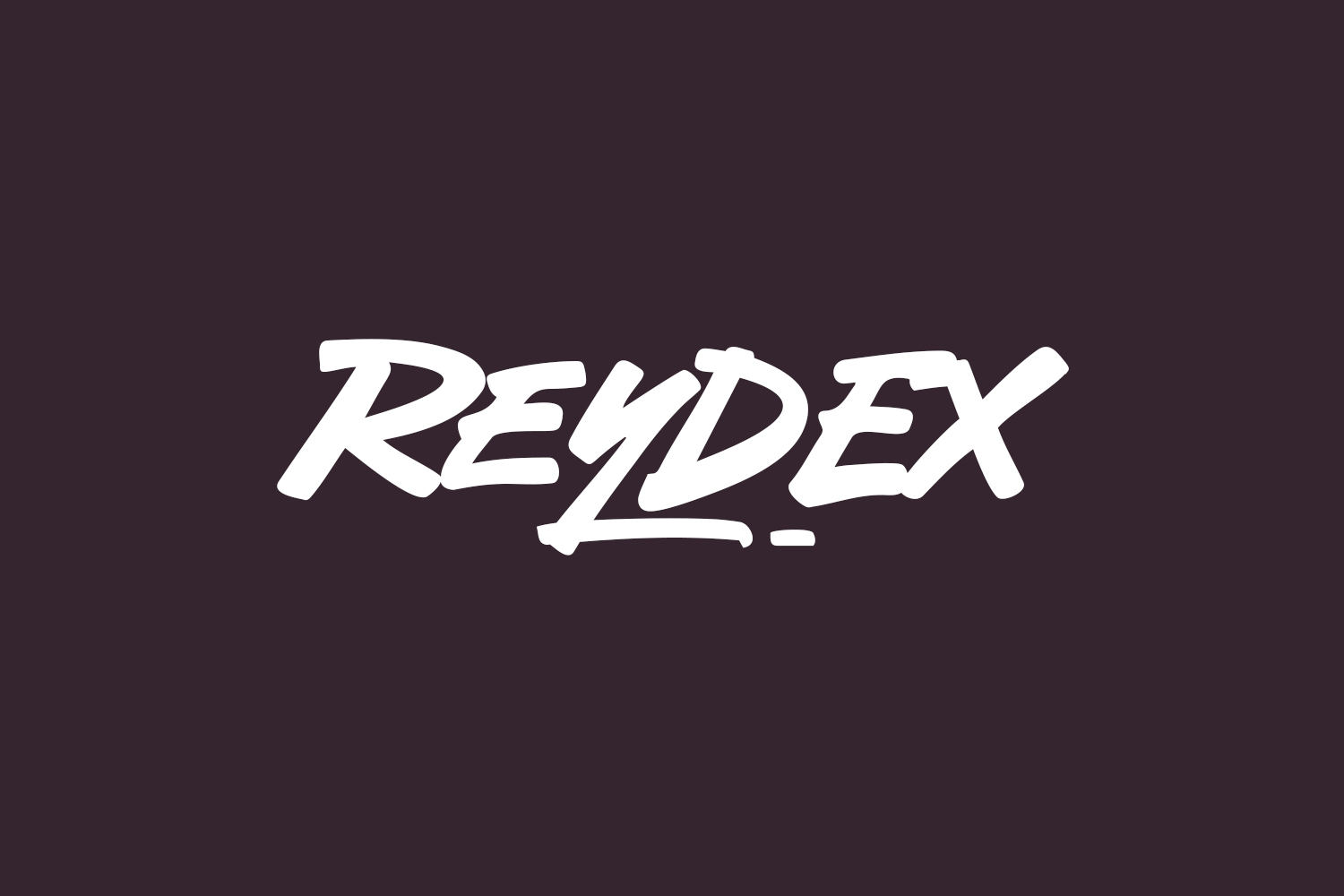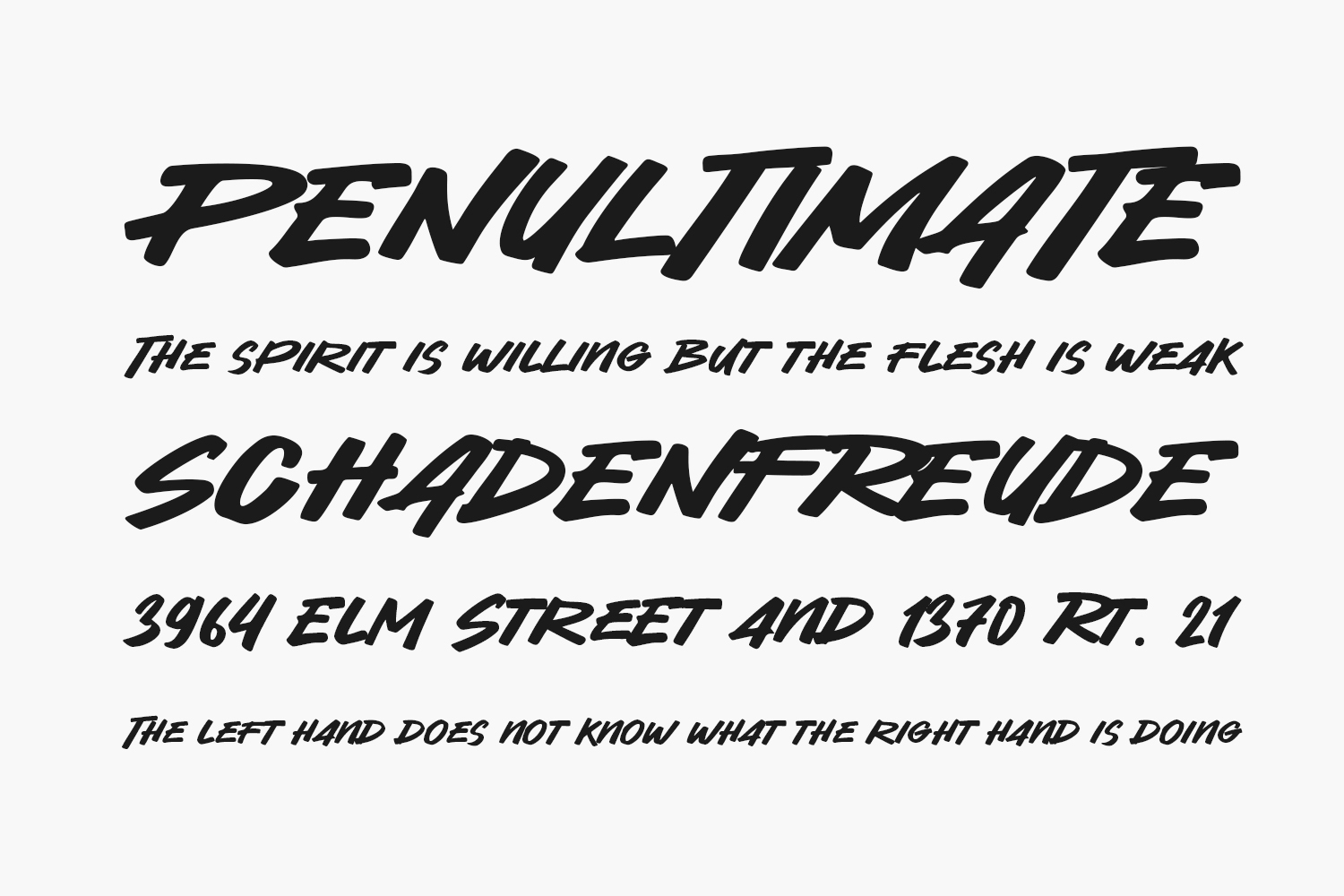
Meet Reydex Free Font, a contemporary bold brush font that’s ideal for elevating your projects, whether it’s posters, logos, magazines, book covers, banners, and beyond. With its quirky, handcrafted style, this font is a versatile addition to your creative toolbox. Embrace Reydex to infuse a unique charm into a wide range of design endeavors and watch your creations stand out. Reydex Free Font is free for personal use only. Please purchase the full version for commercial use.